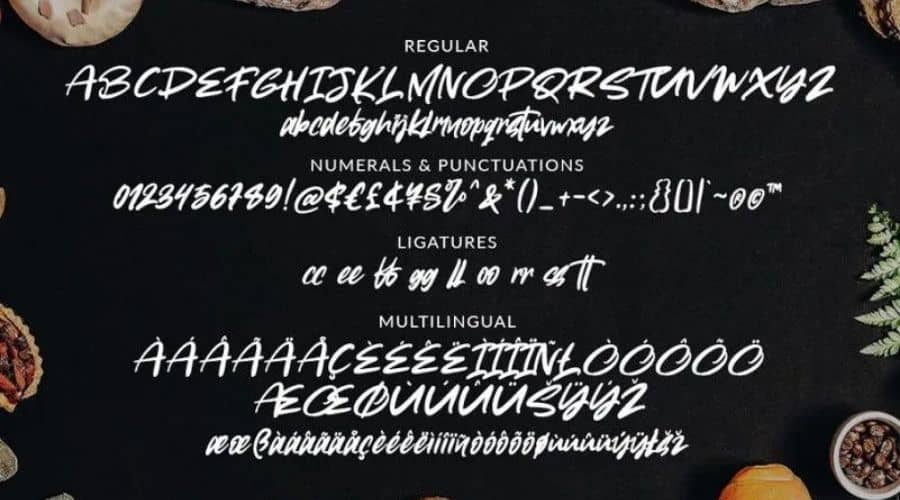
Toothless Brush Font
Toothless Font is a new typeface. It’s done quickly with a hand stroke. Toothless is free to use and enjoy for promotional materials and other purposes. Weape Design continues to be a trendy brush typeface produced and published. A lovely assortment of modern calligraphy brush typefaces that have been hand-lettered. Hands Brush is certain to send a statement that is unapologetically loud and fast-paced. All fonts containing upper & lowercase characters, numerals, ligatures and a large range of punctuation, With otf and ttf format.
This lovely typeface is ideal for signature logos, handwritten quotes, product packaging, fashion magazines, photography, goods, branding initiatives, posters, social media posts, book covers, flyers, and other marketing materials. You can easily build something that looks as if you authored it yourself. Because it is sleek and flexible, this font is ideal for bright and unconventional projects.
| Name | Toothless Brush Font |
| Style | Script, Calligraphy |
| Designer | Weape Design |